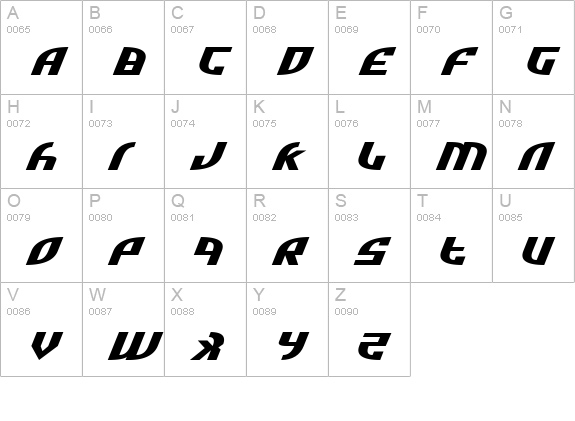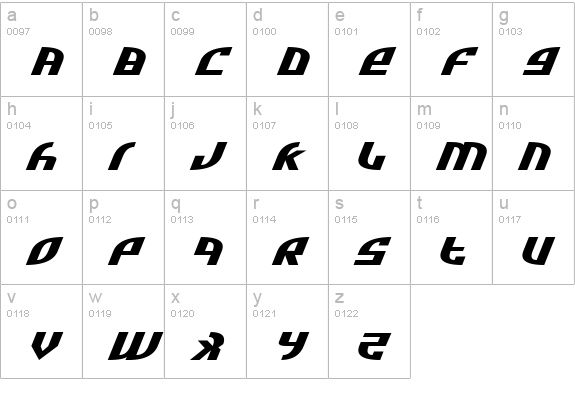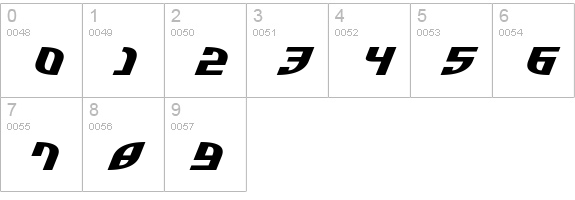
Zone Rider Ultra ExpItalic is an extreme-weight, display variant in the Zone typeface family \xE2\x80\x94 well suited to extreme display use where maximum visual weight is required.
Zone Rider Ultra ExpItalic font is a bold and dynamic typeface designed to make a statement. Its sleek and futuristic style exudes a sense of power and energy, making it perfect for modern design projects. The italicized letterforms add a sense of movement and sophistication, making this font truly stand out. The best part is that Zone Rider Ultra ExpItalic font is completely free to download at FontsMarket.com. This means you can easily access this high-quality font to enhance your creative work without any cost. Whether you're working on a poster, logo, website, or any other design project, Zone Rider Ultra ExpItalic font will add a touch of boldness and style that will make your work pop. Don't miss out on this amazing font – download it now and take your designs to the next level!